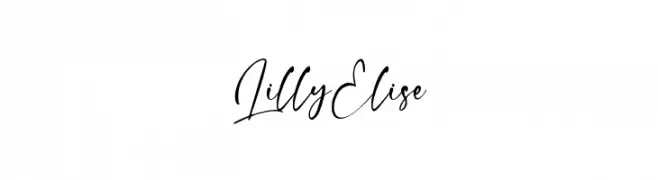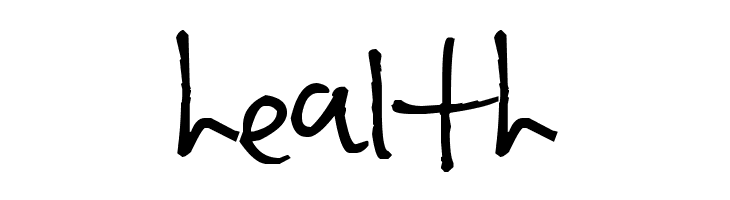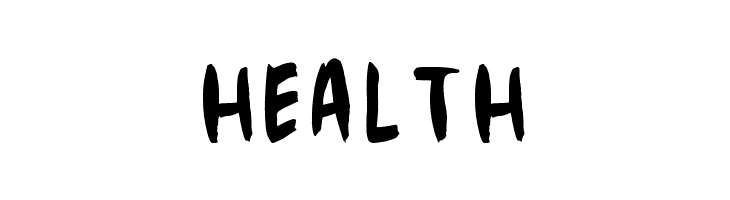
Elise Font
A bold, playful font with whimsical lowercase letters and thick strokes.
Elisein Font
A bold, cursive script font with dynamic, connected strokes.
Elisein Font
A bold, expressive script font with flowing, cursive letterforms.
EliseNo7 Font
A bold, brush-style font with a hand-drawn, artistic look.
Pea EliseJoy Font
A playful, casual handwritten font with irregular strokes and a spontaneous feel.
Wonderfully_Wandering Font
Font by Elise Harper
A playful, casual handwritten font with irregular strokes and an organic flow.
dear_studio_audience Font
A playful, hand-drawn font with a whimsical and artistic style.
Lilly Elise Font
Font by Vztype Studio
A graceful, handwritten script font with flowing, connected strokes.